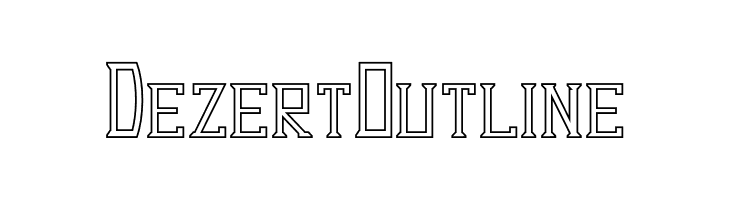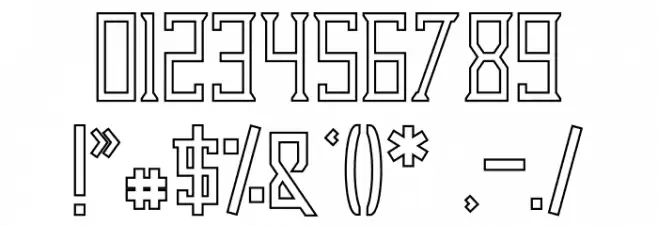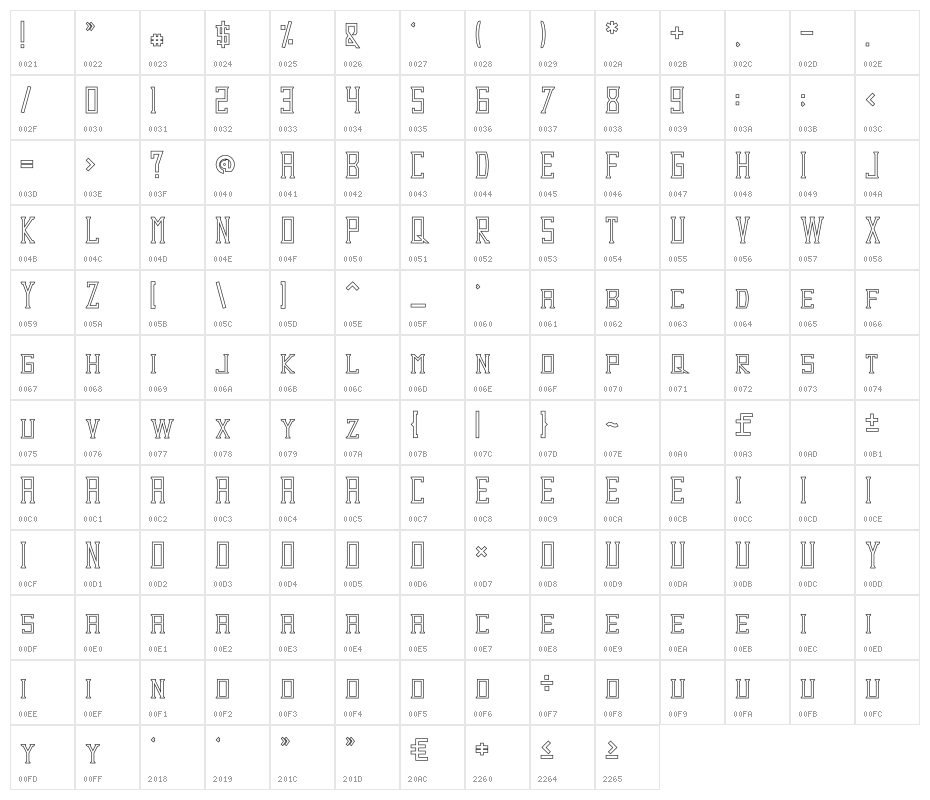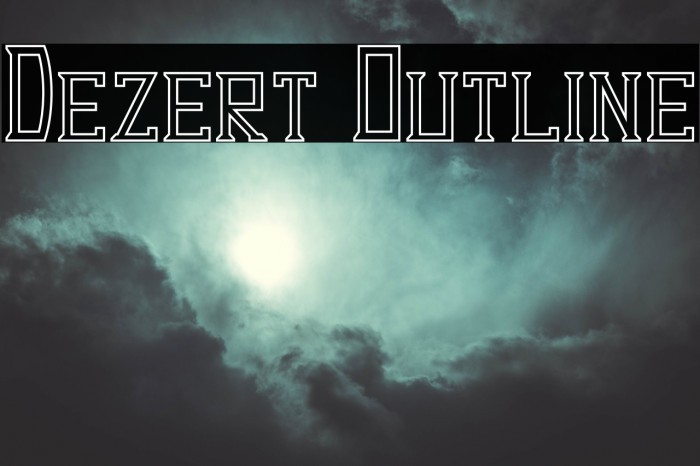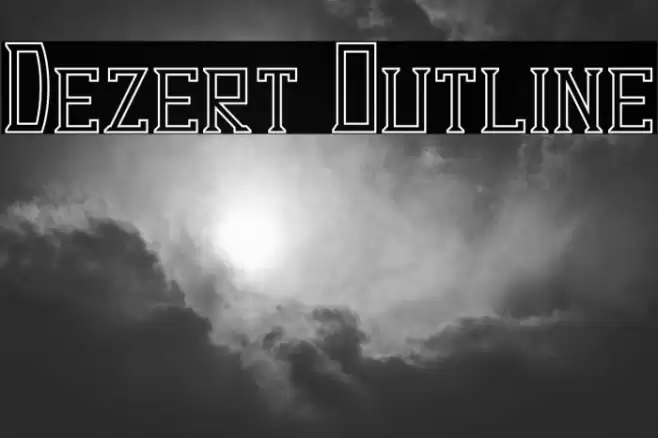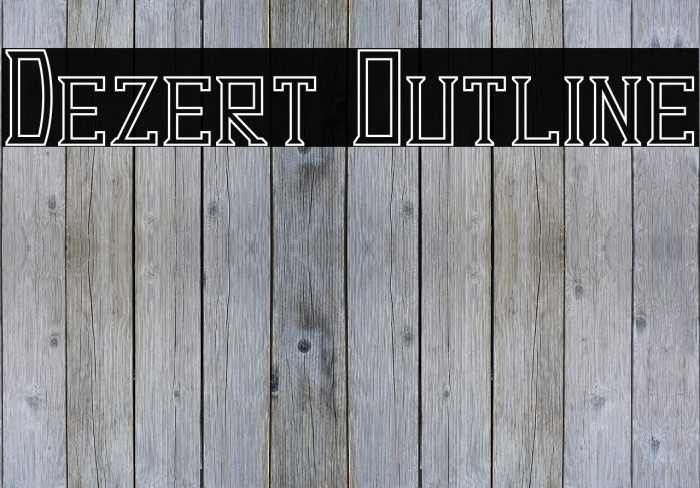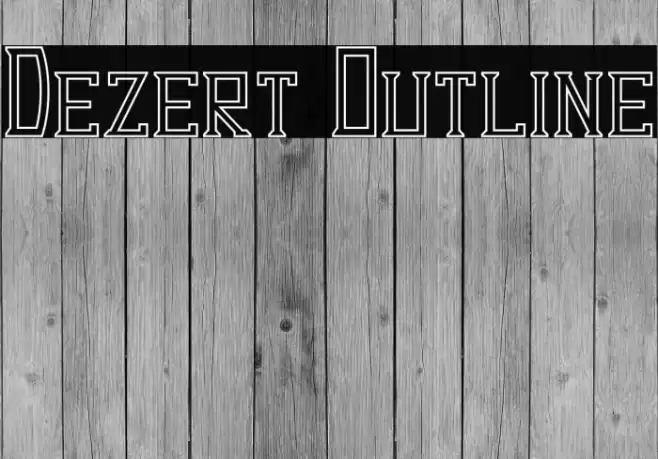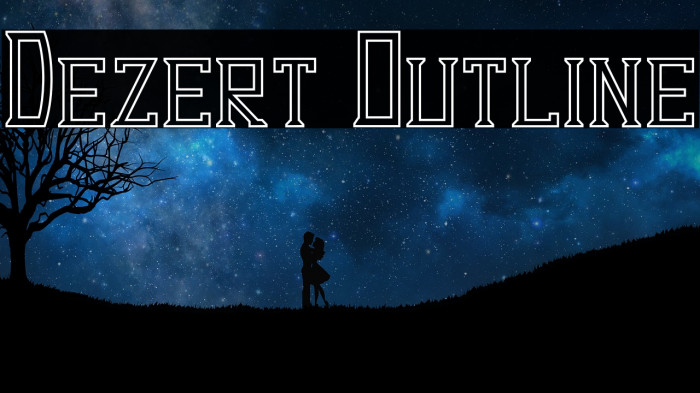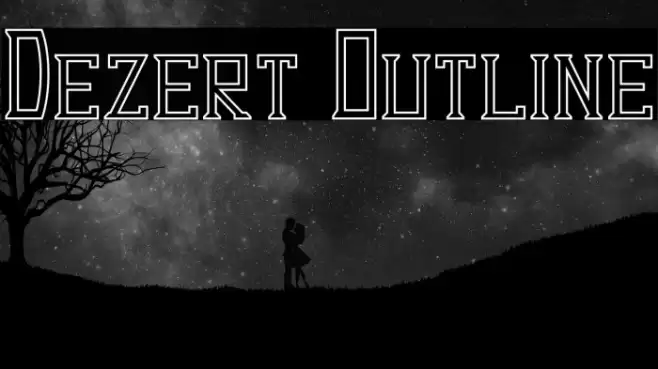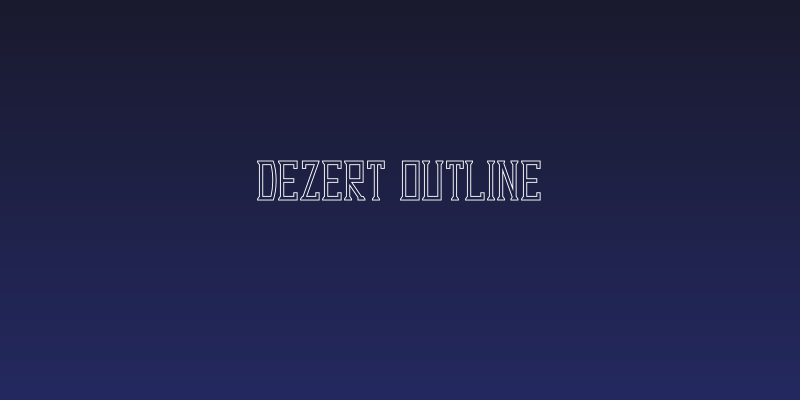
Dezert Outline Font
Dezert Outline Description
This font features a bold, geometric outline style that gives each character a distinct and modern appearance. The uppercase letters are designed with sharp angles and straight lines, creating a structured and architectural feel. The numerals and special characters maintain this consistent style, ensuring a cohesive look across all text. The outline effect adds a layer of depth, making the font suitable for eye-catching designs. Its clean and precise lines make it ideal for projects that require a contemporary and edgy aesthetic.